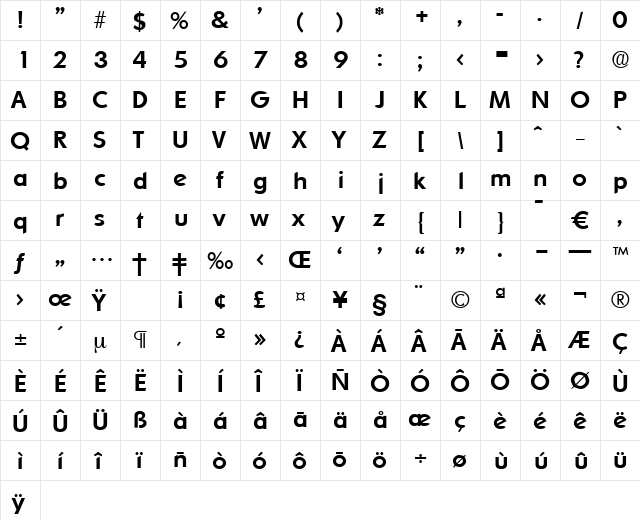
Ornitons-Medium Regular
Design Context for Ornitons-Medium Typeface
Ornitons-Medium takes a measured approach to typography — its balanced proportions and neutral character make it a reliable workhorse for both digital and print work.